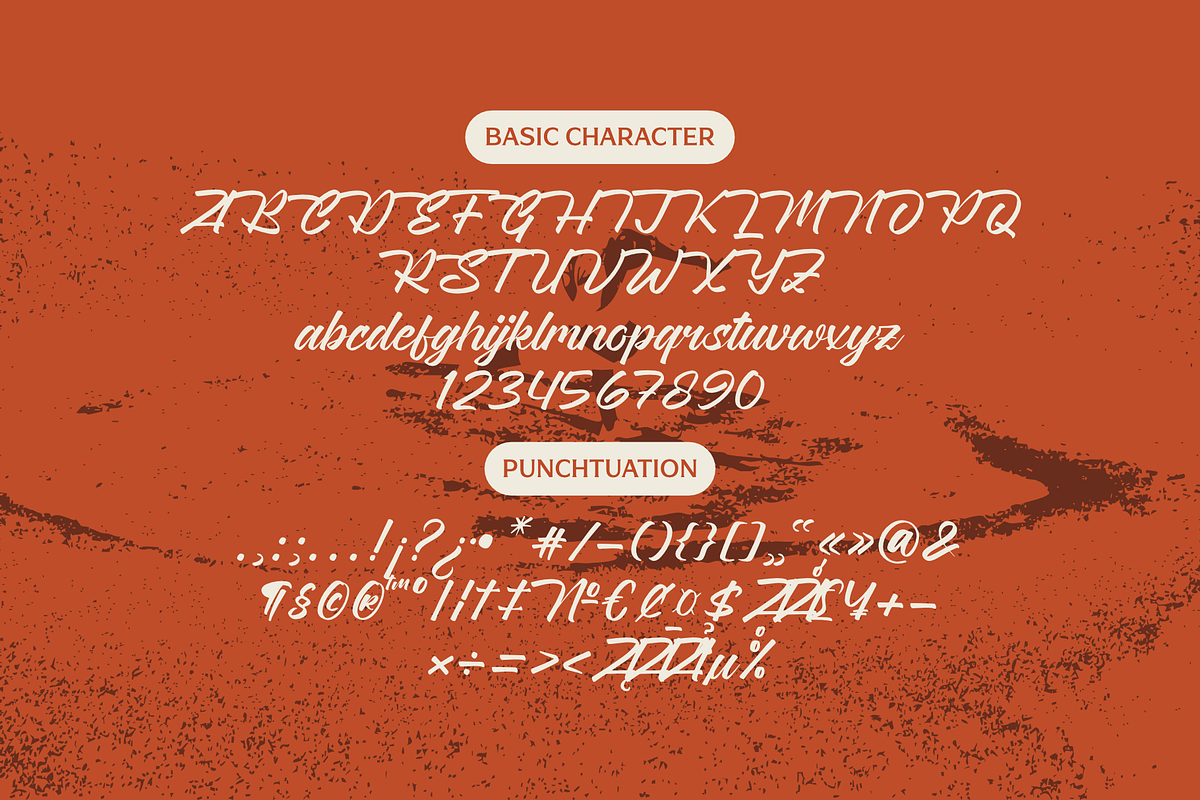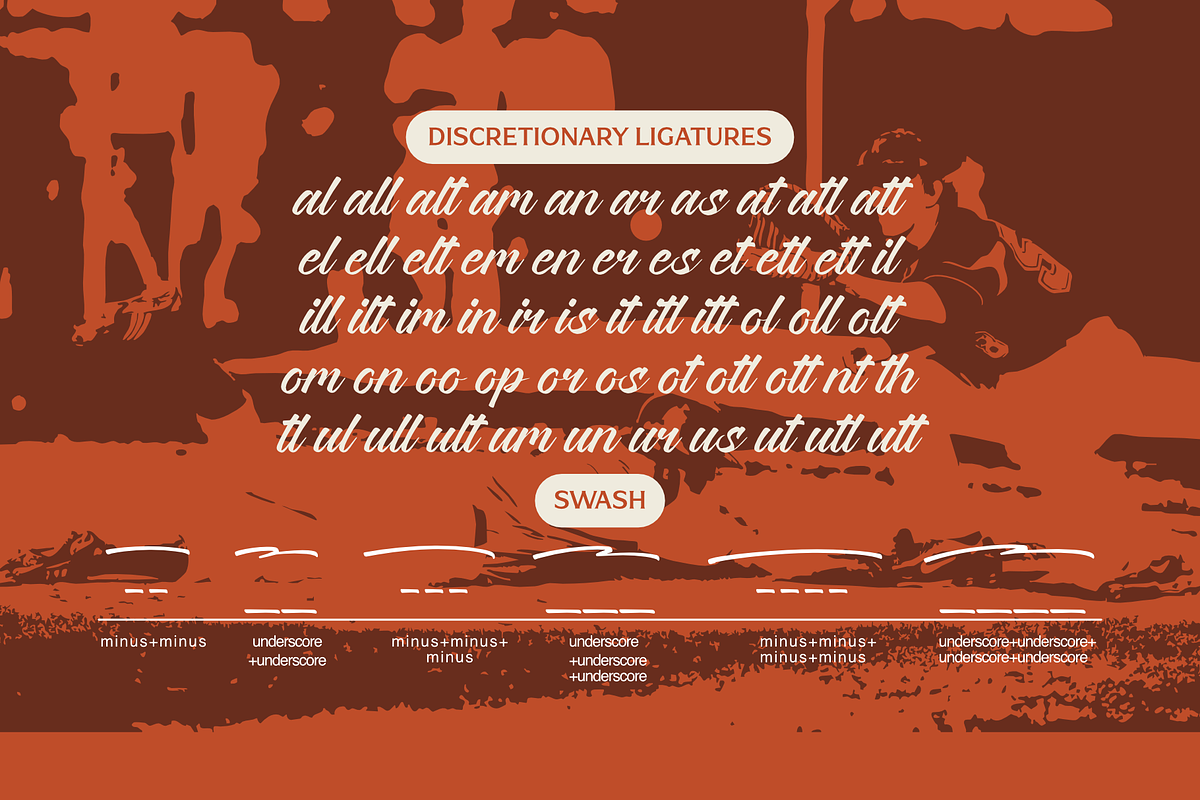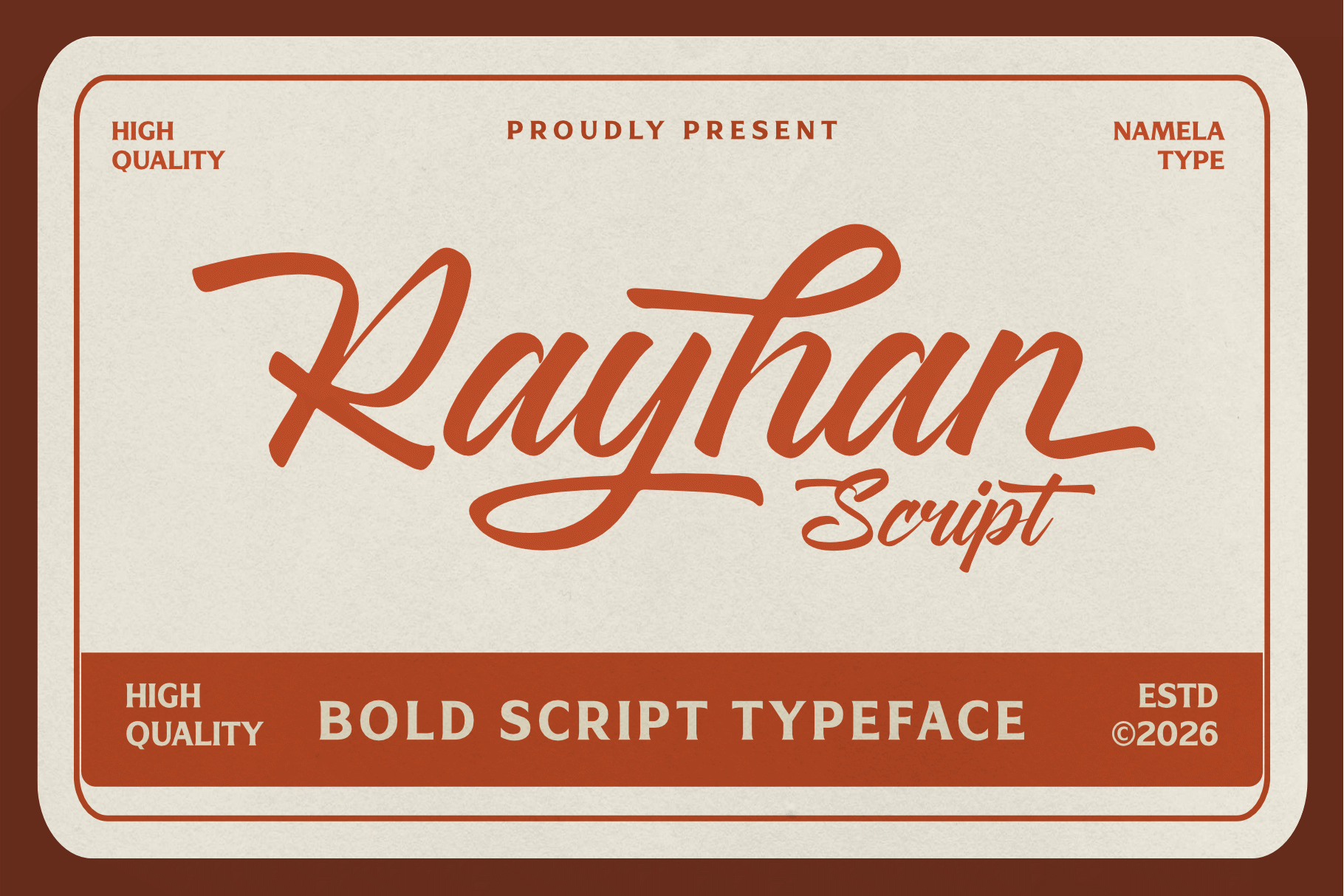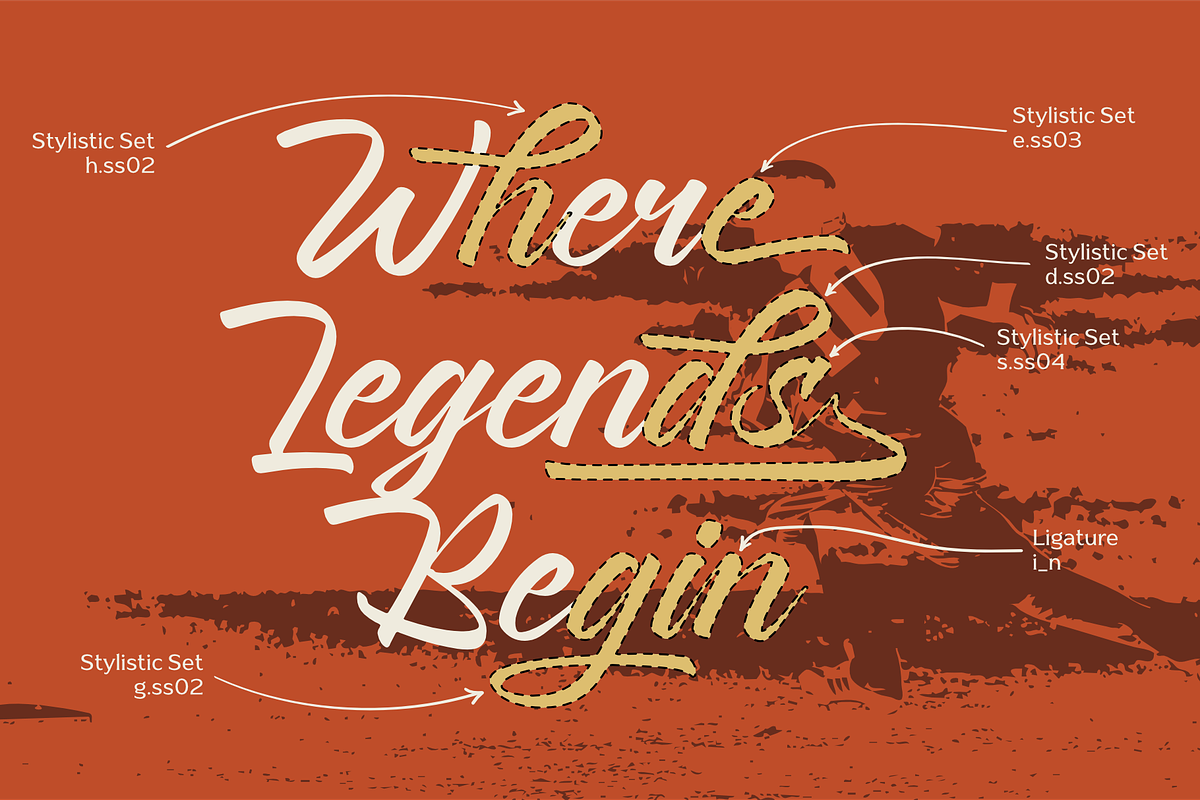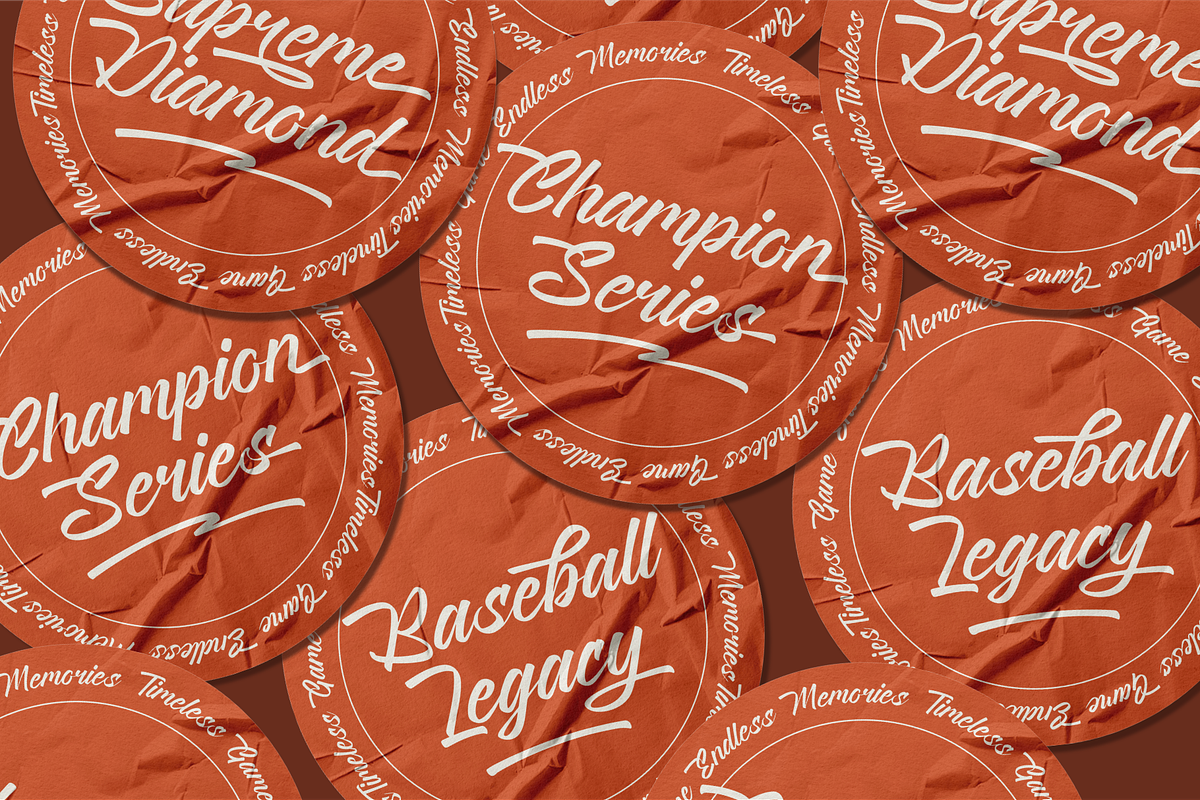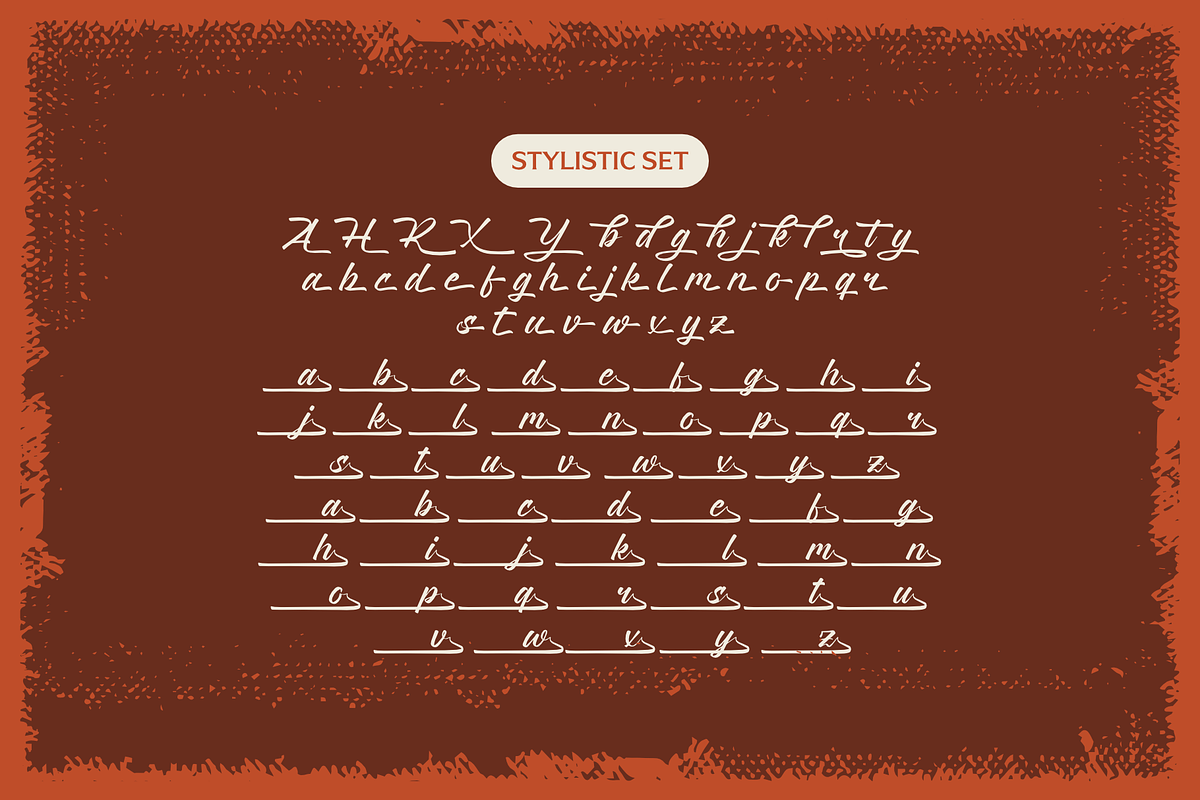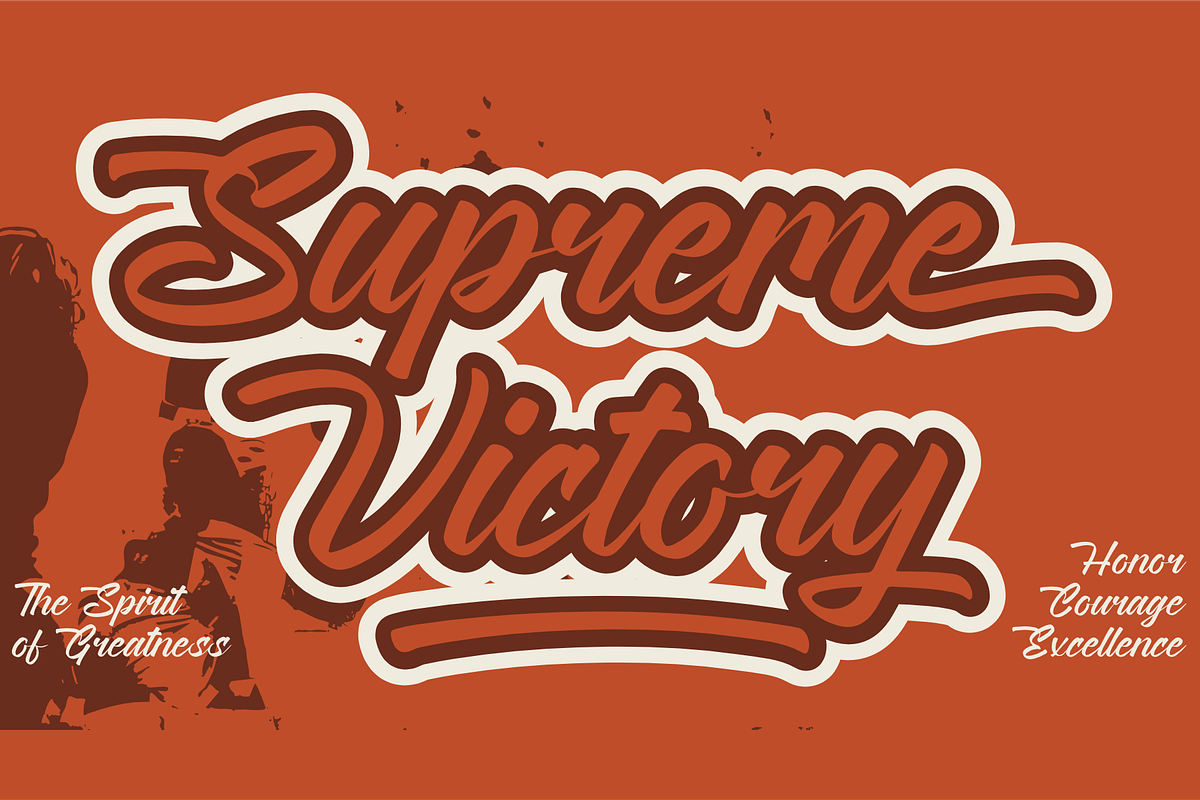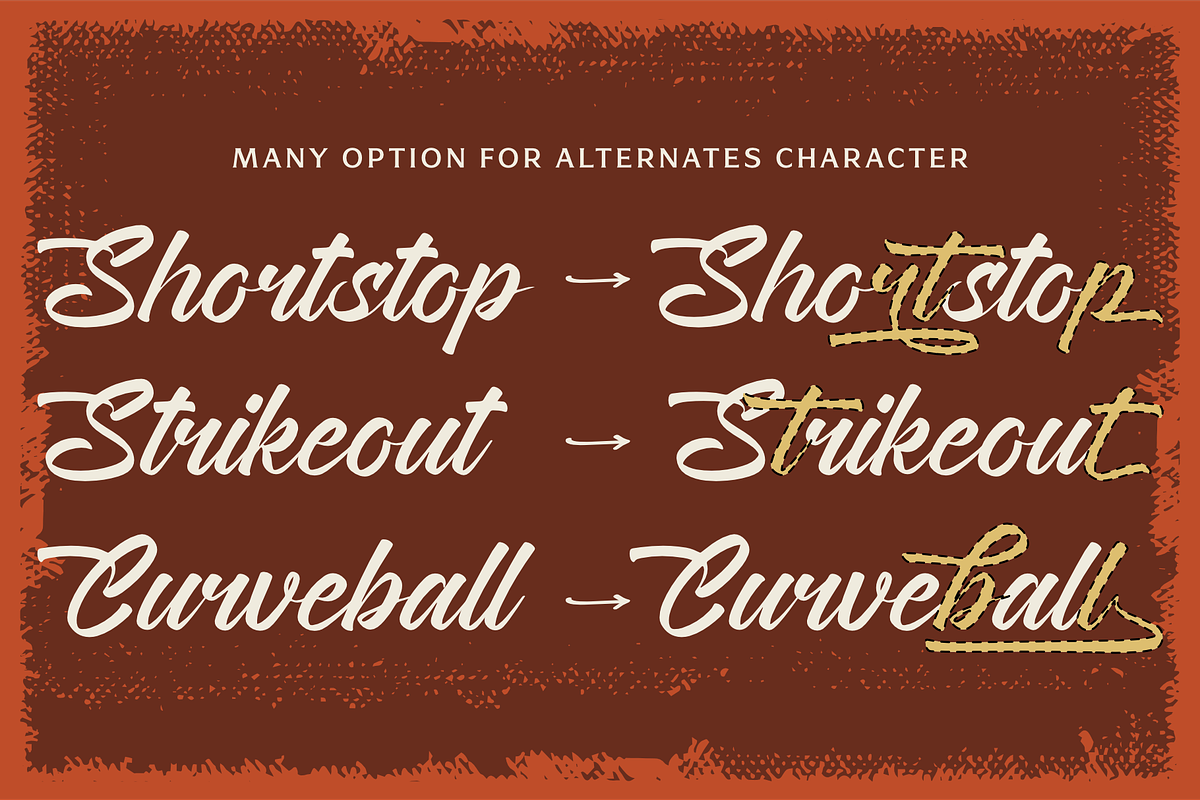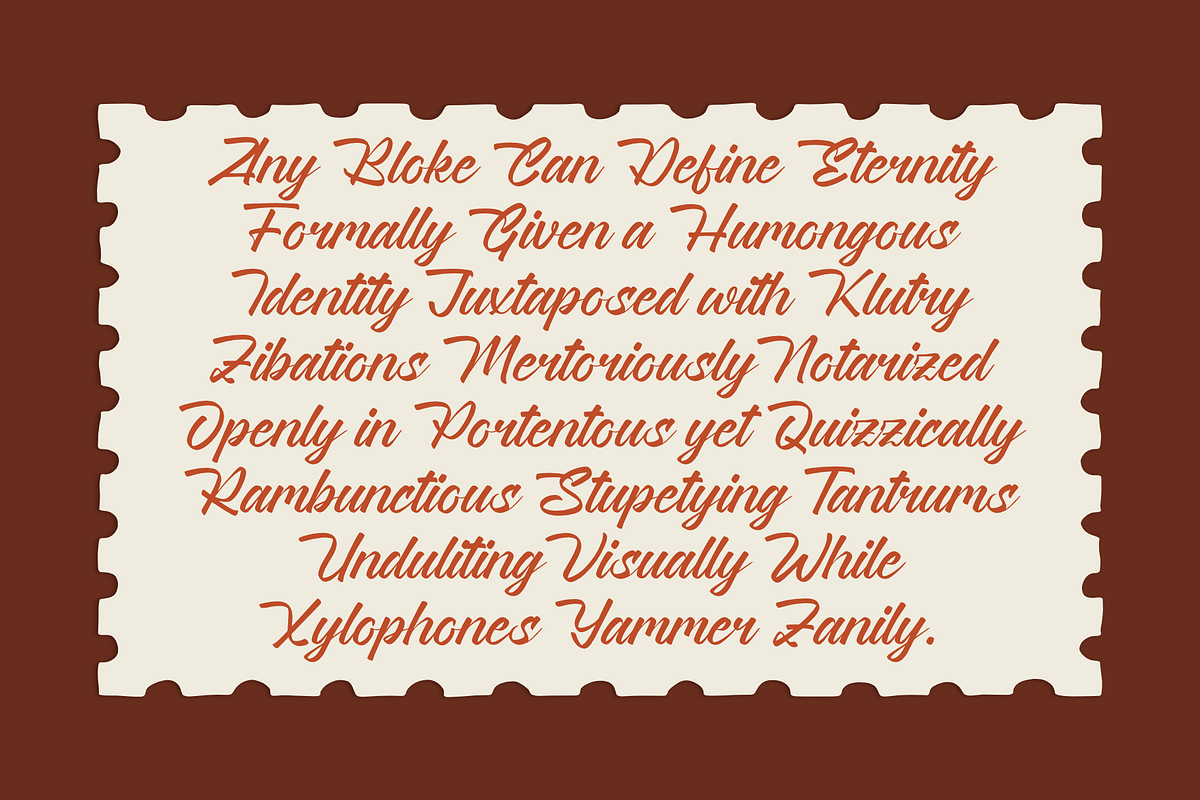
Rayhan Script Bold Handwritten Font
Rayhan Script – Bold Handwritten Script Typeface for Branding and Sports Design
Rayhan Script is a bold handwritten script font that combines expressive brush-style strokes with refined calligraphic elegance. Designed to make a powerful visual statement, the typeface features smooth flowing connections, confident curves, and dynamic letterforms that instantly capture attention while maintaining excellent readability.
Inspired by classic lettering traditions, vintage sports branding, signature typography, and handcrafted sign painting, Rayhan Script delivers a timeless aesthetic that feels both professional and personal. Its bold structure and natural handwritten rhythm make it ideal for branding, sports graphics, packaging, and premium display typography.
Rayhan Script is characterized by bold brush-inspired strokes, flowing handwritten connections, and carefully balanced proportions. The typeface combines energetic movement with refined structure, creating a script that feels dynamic without sacrificing readability.
Its natural rhythm is enhanced through discretionary ligatures, contextual connections, and multiple alternate characters that allow words to appear more organic and handcrafted. Decorative swashes add another layer of sophistication, making the typeface especially suitable for premium branding and display typography.
The result is a highly expressive script font capable of adapting beautifully to both contemporary and vintage-inspired visual styles through carefully crafted glyphs.
Variable and OpenType Features
Rayhan Script includes a rich collection of professional typography features:
Uppercase & Lowercase Characters
Discretionary Ligatures
Multiple Stylistic Sets
Decorative Swashes
Signature Lettering Style
Bold Script Construction